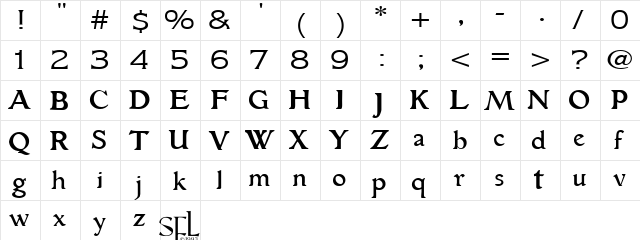
Octavian Regular
Design Context for Octavian Typeface
Octavian offers clean, dependable letterforms without strong stylistic allegiance, making it a practical choice for designers who need flexibility.